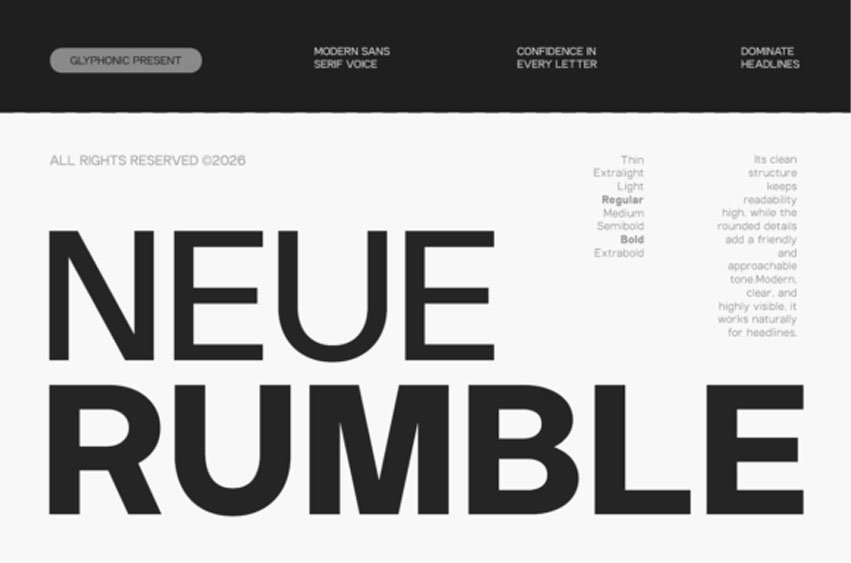
Neue Rumble Font Command your layout with Neue Rumble, a powerhouse sans serif family that will dominate headlines. This versatile typeface collection spans from a delicate Thin to a commanding Extrabold, offering “Confidence in Every Letter.” Its clean, geometric structure ensures high readability, while subtle rounded details provide a friendly, approachable tone that balances its bold presence. It’s perfect for magazine mastheads, bold book covers, and structured report headers.
Neue Rumble is the premier choice for tech branding, editorial headers, high-visibility signage, and modern corporate identities that require a clear, authoritative voice.